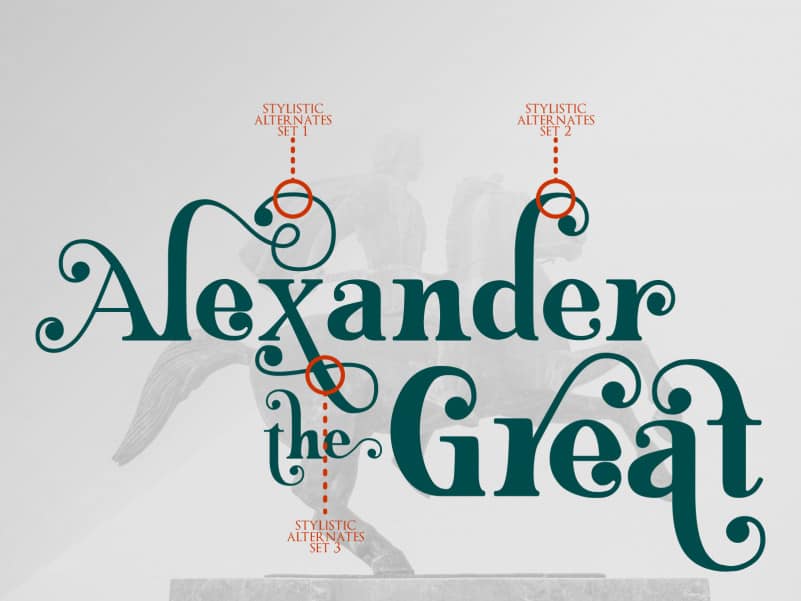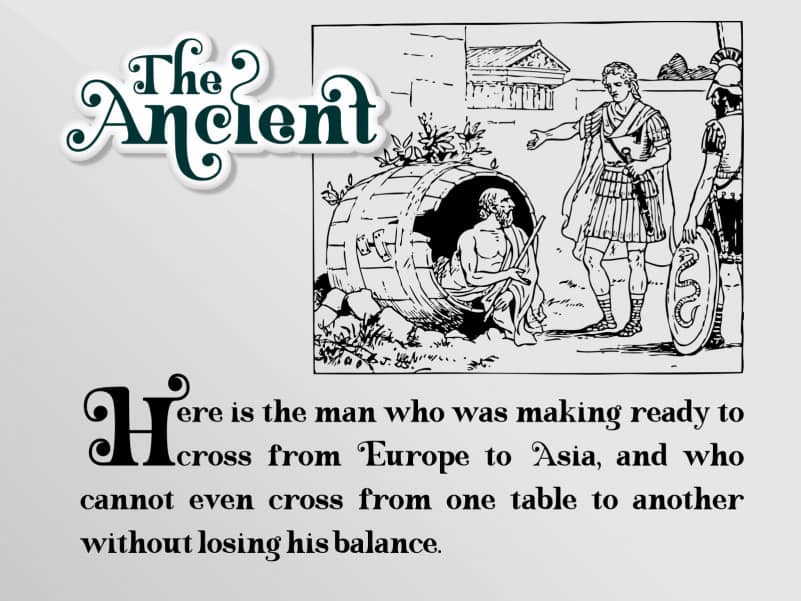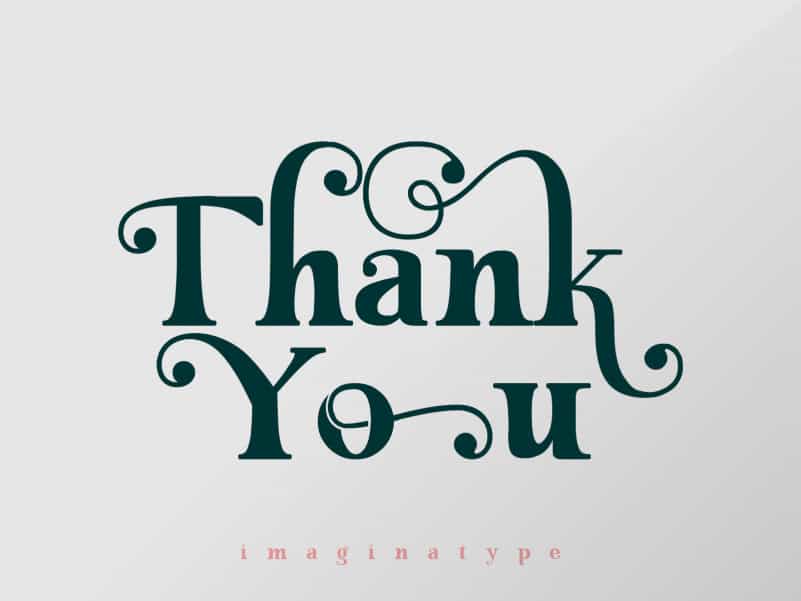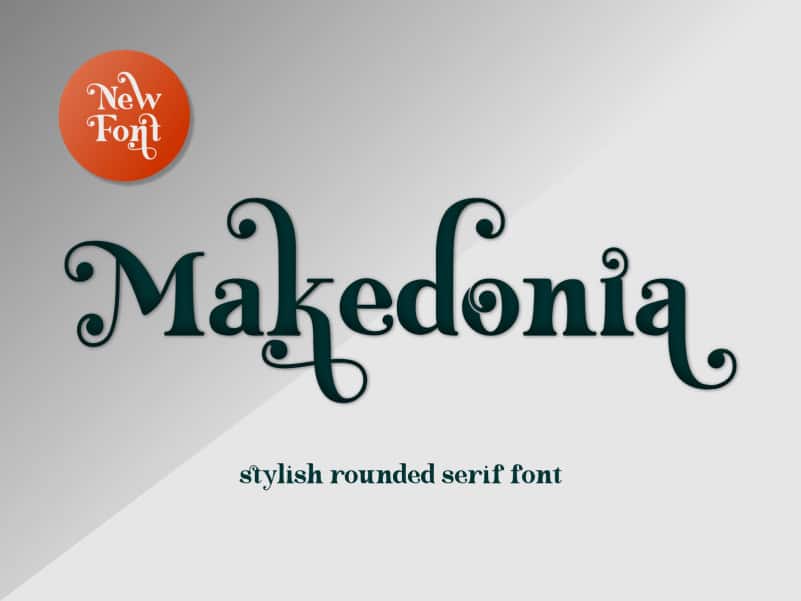
Makedonia Serif Font is an elegant and unique serif font. With a thin, rounded serif tip. There are also three types of decoration that can be selected according to taste.
Fall in love with its incredibly versatile style and use it to create gorgeous wedding invitations, beautiful stationary art, eye-catching social media posts, and much more!